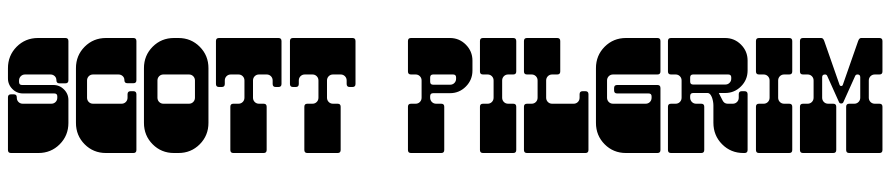
Scott Pilgrim Font
ActionScott Pilgrim vs. the World is a 2010 action-comedy movie directed by Edgar Wright, based on the comic book series of the same name by Bryan Lee O'Malley. The film follows Scott Pilgrim (Michael Cera), a young man who must defeat his new girlfriend's seven evil exes in order to win her heart.
The font used for the lettering of "Scott Pilgrim" is reminiscent of the Superfly font by Fontalicious, while "vs. the World" has similarities to Dusty font by dustBust. Both fonts can be downloaded for free from the Fonts Used Section.